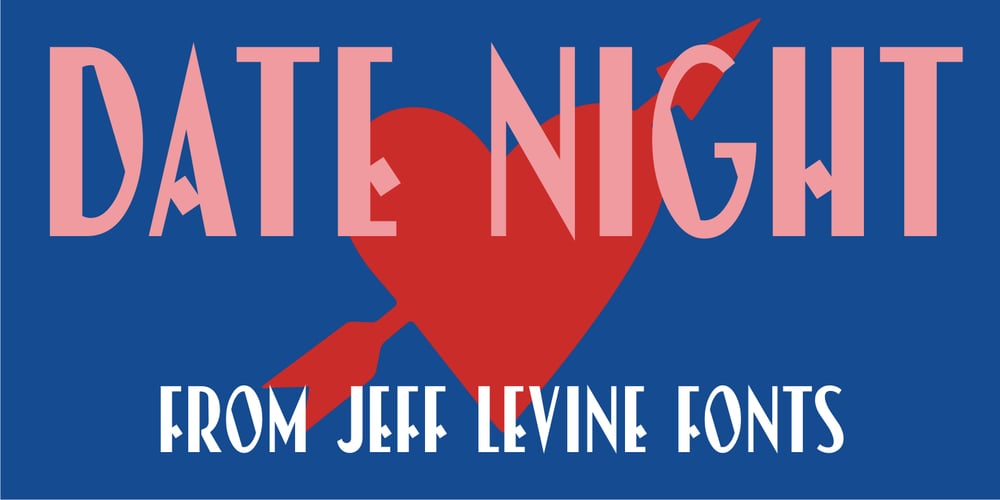
Date Night JNL
Date Night JNL font
Date Night JNL Font Family was designed by Jeff Levine and published by Jeff Levine. Date Night JNL contains 1 styles and family package options. The opening title card for 1931’s pre-code movie drama “Other Men’s Women” (with Mary Astor, Regis Toomey, James Cagney and Joan Blondell amongst the cast members) is the basis for the Art Deco type face Date Night JNL.